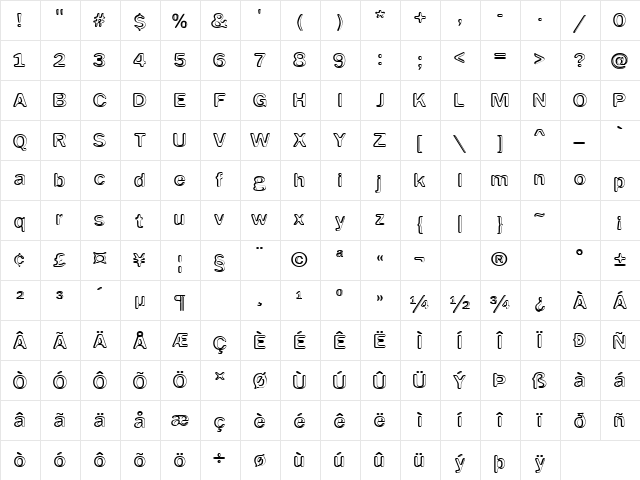
Impressed Metal Regular
Design Context for Impressed Metal Typeface
Impressed Metal offers clean, dependable letterforms without strong stylistic allegiance, making it a practical choice for designers who need flexibility.